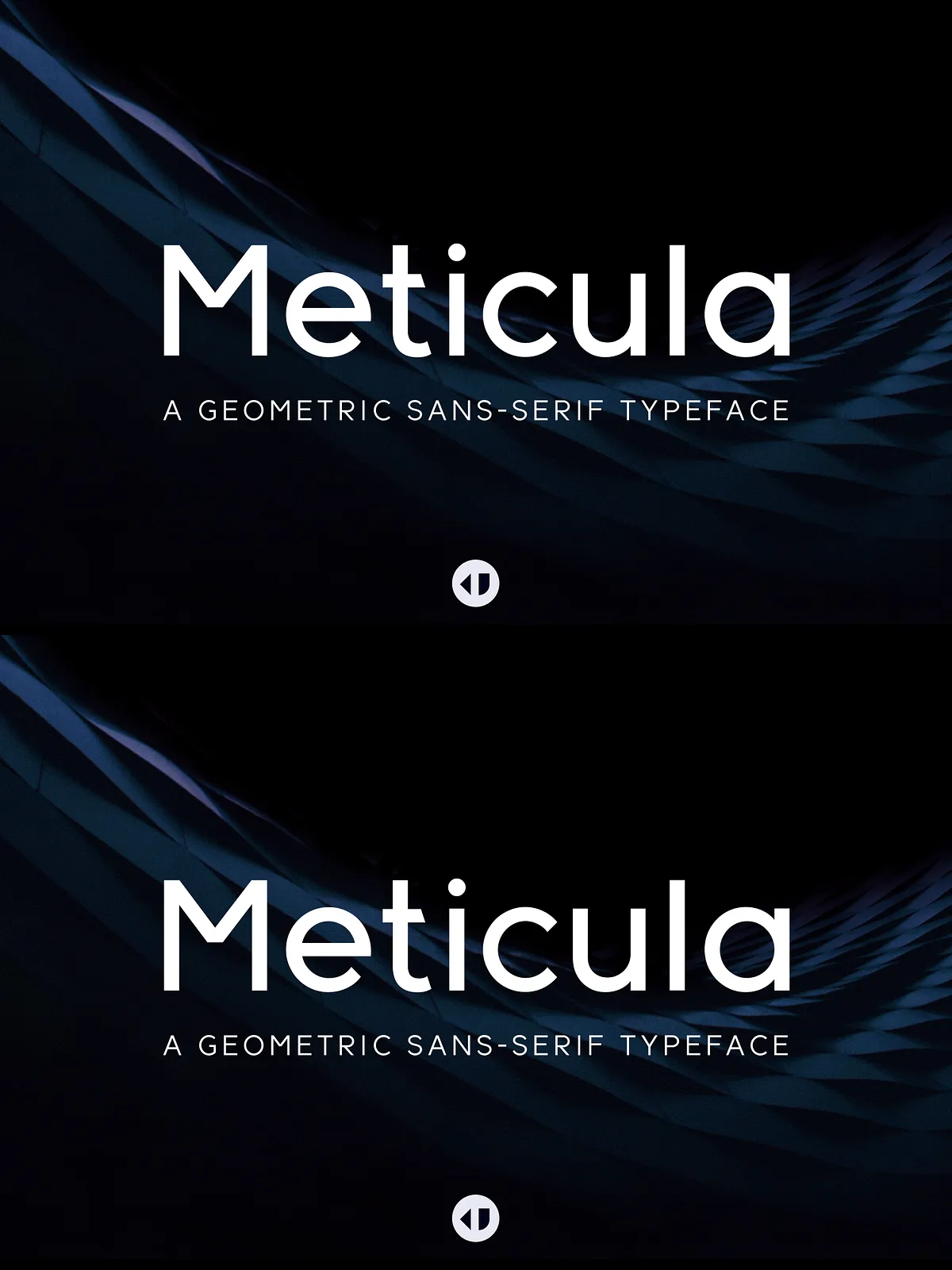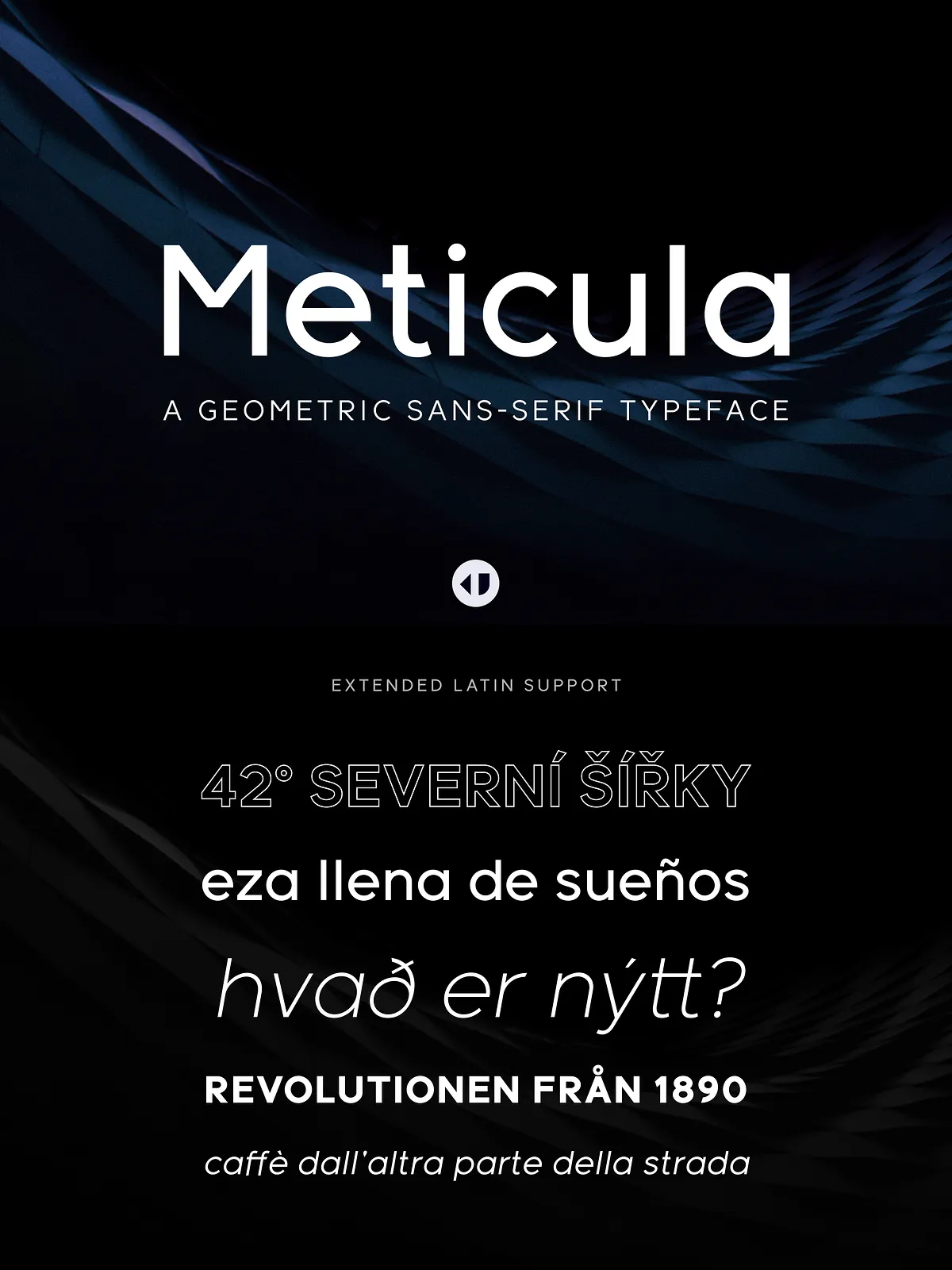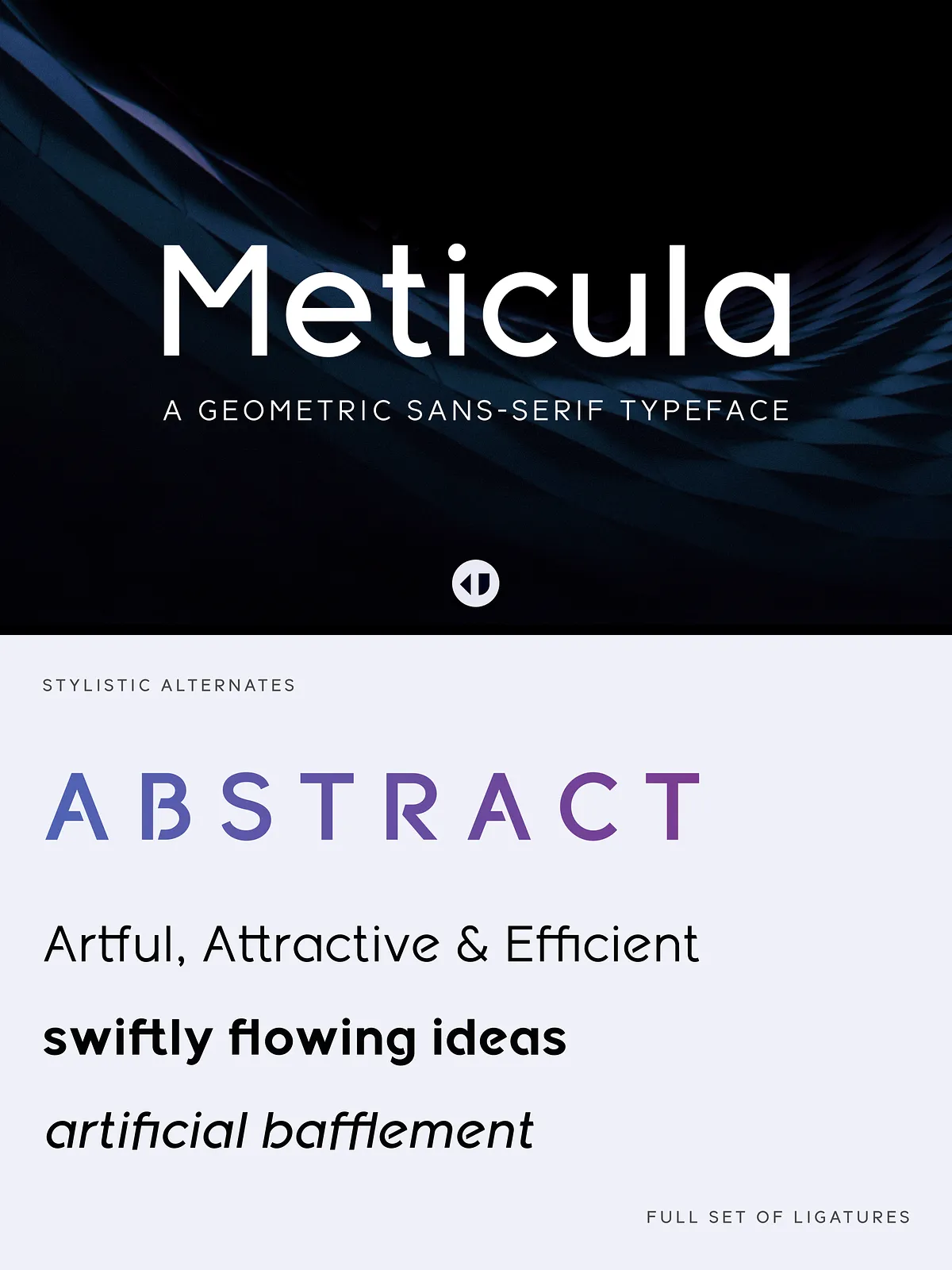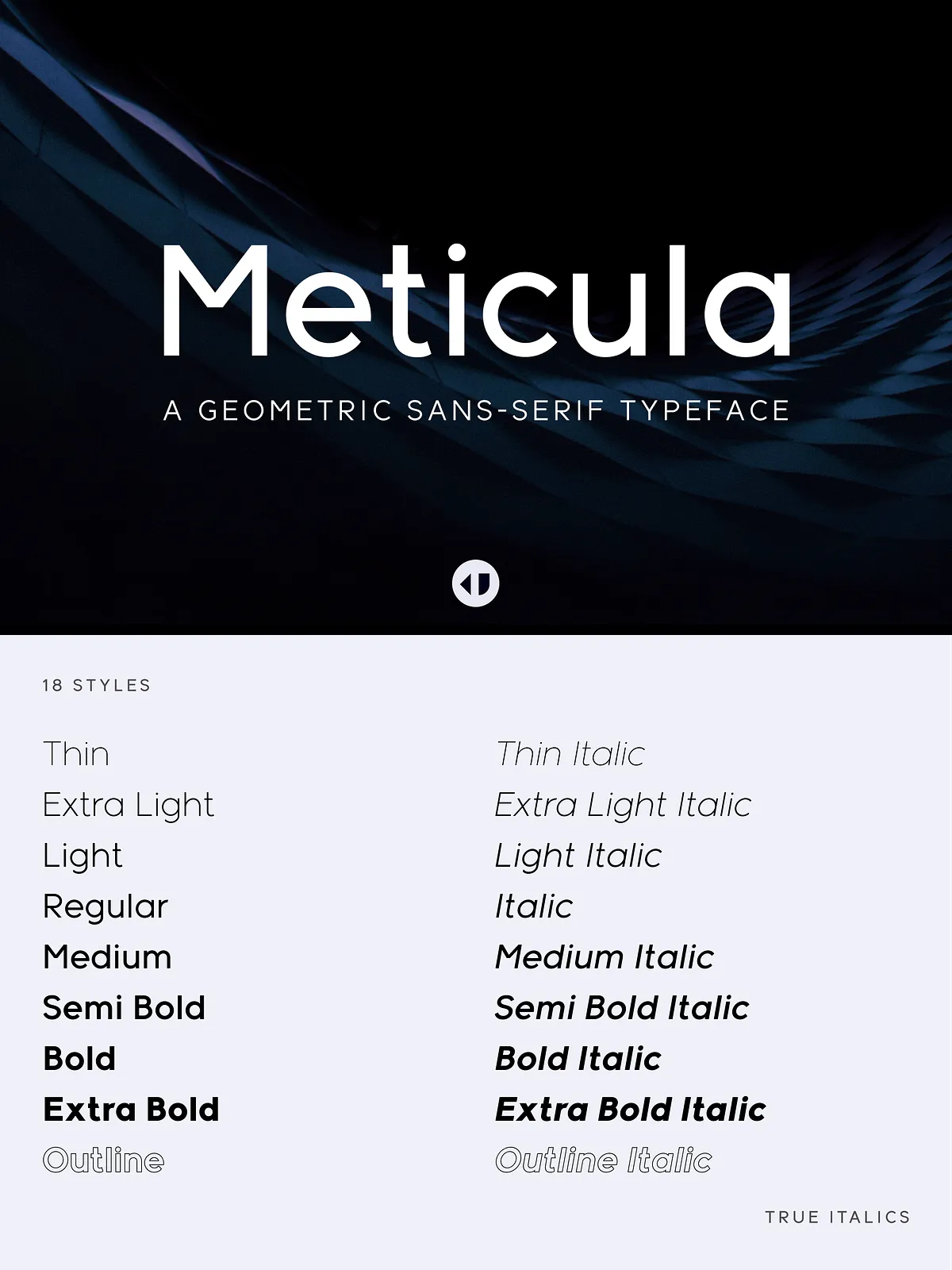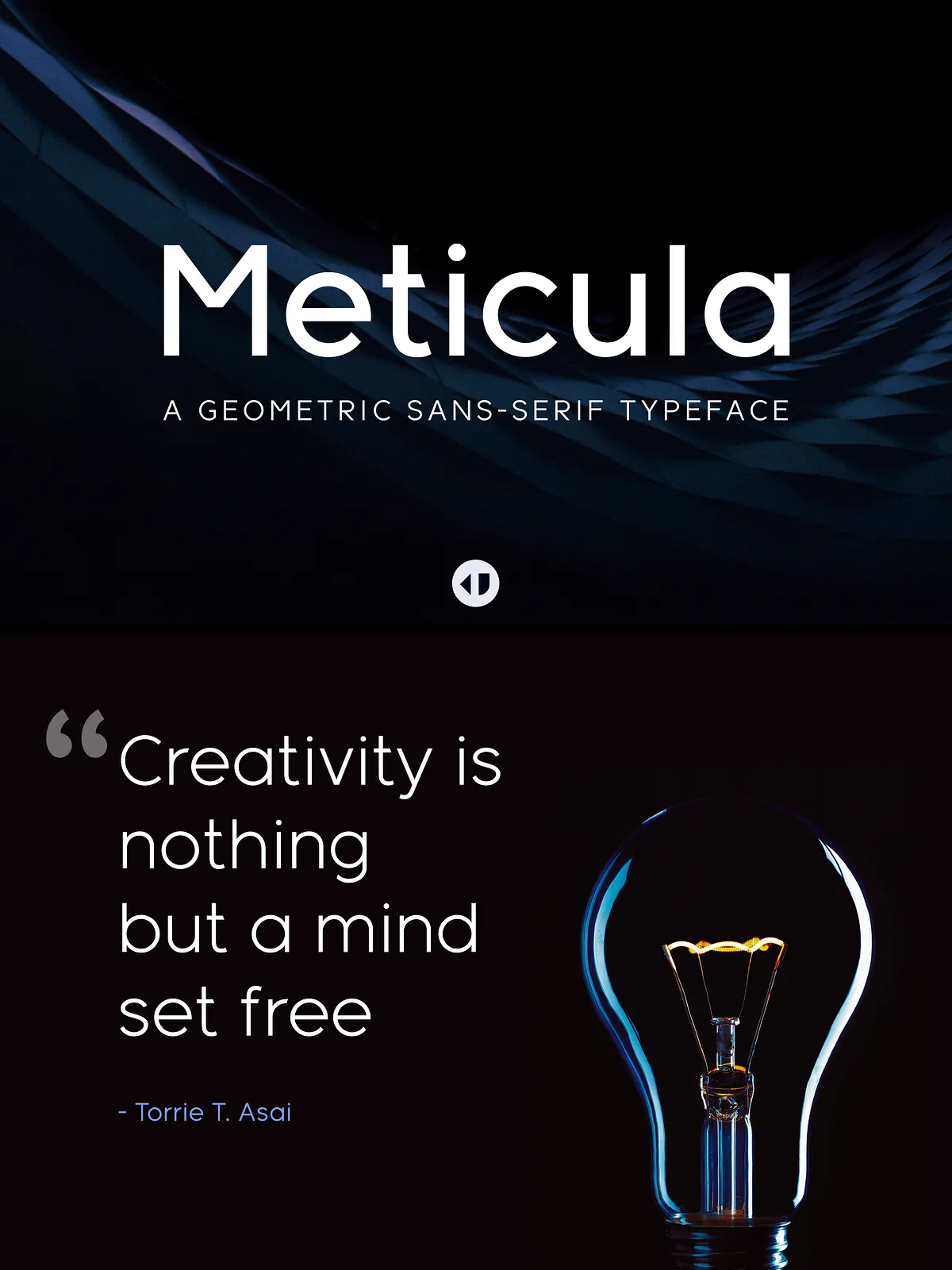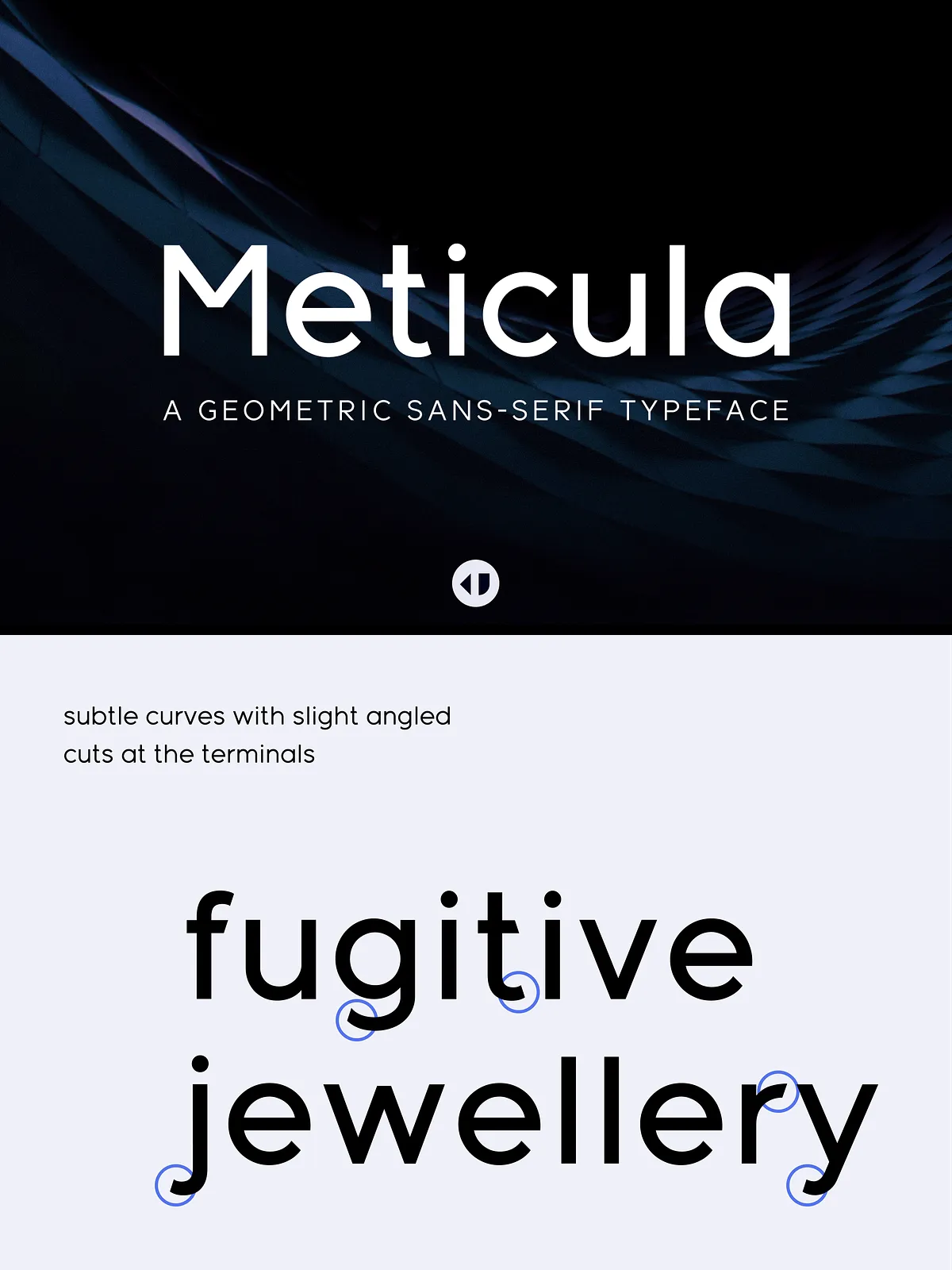
Meticula is a sans-serif font family of 18 fonts, meticulously crafted with geometric shapes and inspired by modern sans-serif typefaces.
It’s minimal design and diverse font styles cater to all kinds of typography and graphic design work.
Meticula is a sans-serif font family of 18 fonts, meticulously crafted with geometric shapes and inspired by modern sans-serif typefaces.
It’s minimal design and diverse font styles cater to all kinds of typography and graphic design work.